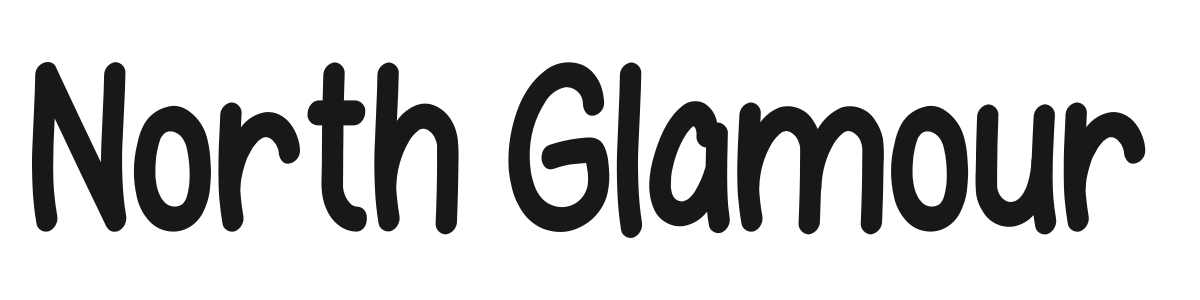
North Glamour
North Glamour is a bold rounded sans with chunky, clubbed terminals and a playful hand-drawn energy. Its wide, relaxed characters borrow from comic lettering traditions without feeling childish or crude. Strong at larger sizes where the weight and warmth can read clearly.